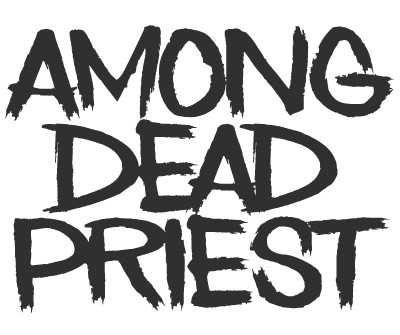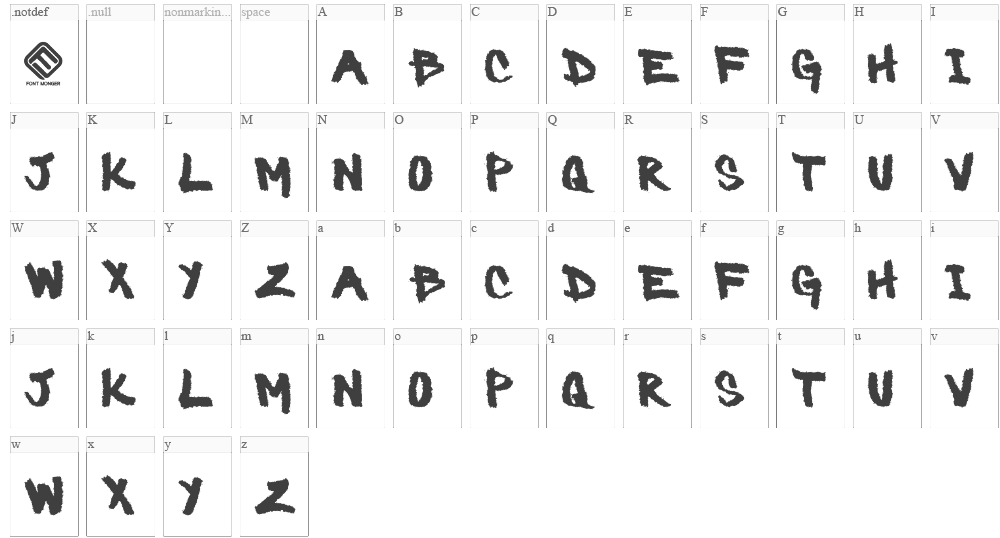
Barbaric: A bold and powerful font with a savage, barbaric feel. Its jagged edges and fierce lines evoke the raw energy of tribal warriors, while its rough and tumble letters convey a sense of strength and domination. Ideal for creating designs for barbarian-themed events, games, or anything else that requires a touch of the ancient and brutal, Barbaric font is sure to bring a sense of ferocity to any project.
Lowercase: Same as uppercase
Numbers: No
Symbols & Punctuation: No
Accents: No